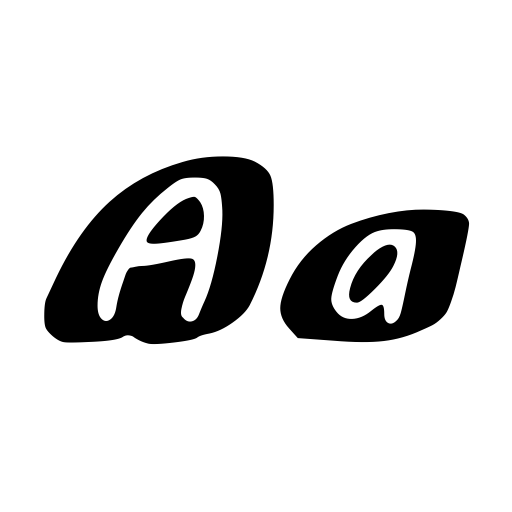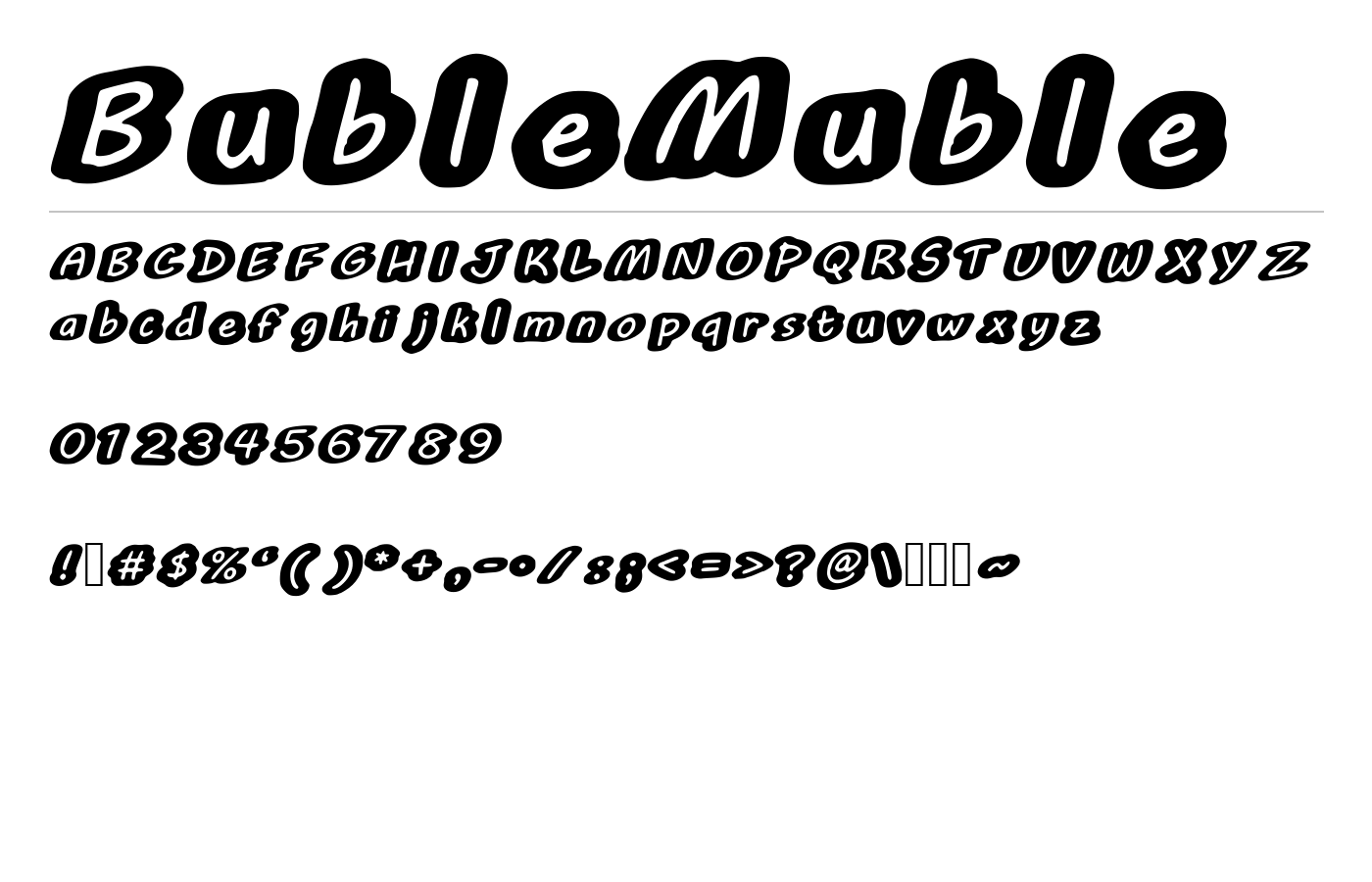
BubleMuble is a playful, bold sans serif font with a bubbly, rounded style and a fun, informal personality. Its thick strokes, smooth curves, and slightly exaggerated shapes make it perfect for eye-catching headlines, children's materials, or casual branding that needs a friendly and approachable feel. This font shines in designs where a lively and energetic vibe is desired, adding warmth and charm to logos, posters, and packaging.
BubleMuble Font
About BubleMuble Font